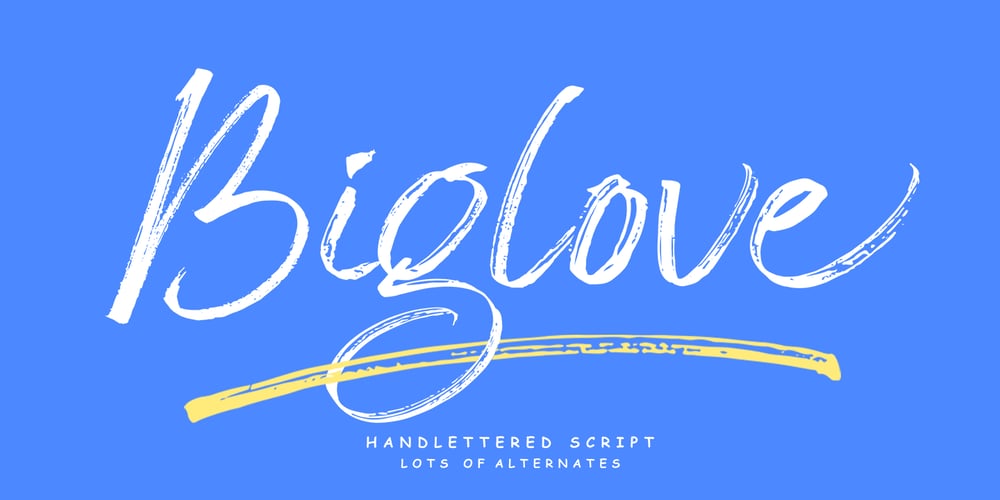
Biglove Font Family was designed by Muhammad Fajar and published by Lucky Type. Biglove contains 2 styles and family package options. Biglove is as a handwritten script with initial letters and ending swash characters. With its alternative characters, you will see a unique, handmade look. Biglove has a few characters for each lowercase characters and you can even use it as a swoosh. You will find it easier for modern designs such as advertising, sales, branding, poster, logos, social media text overlays. Both textured with uppercase and lowercase characters, number, punctuation and extensive language support.